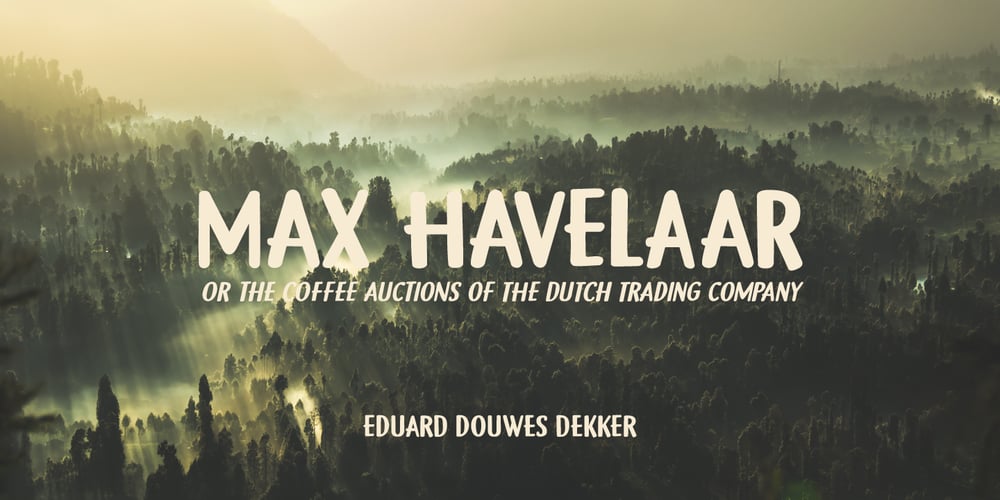
Gamboge Font Family was designed by David Kerkhoff and published by Hanoded. Gamboge contains 2 styles and family package options. Gamboge is a deep saffron to mustard yellow pigment which is extracted from a tree. Its name comes from gambogium, the latin word for the pigment. Gambogia font is a beautiful all caps typeface with a pre-war feeling to it. Upper and lower case differ and can be mixed freely. Use Gamboge for your product packaging, book covers and websites.